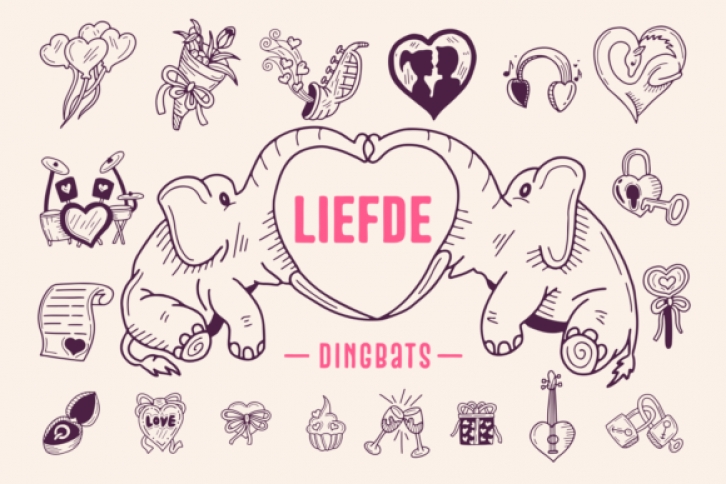
Liefde is a fun, jolly and incredibly useful dingbats font. Whether you’re using it for crafting, digital designing, presentations or greeting cards making, it’s perfect!